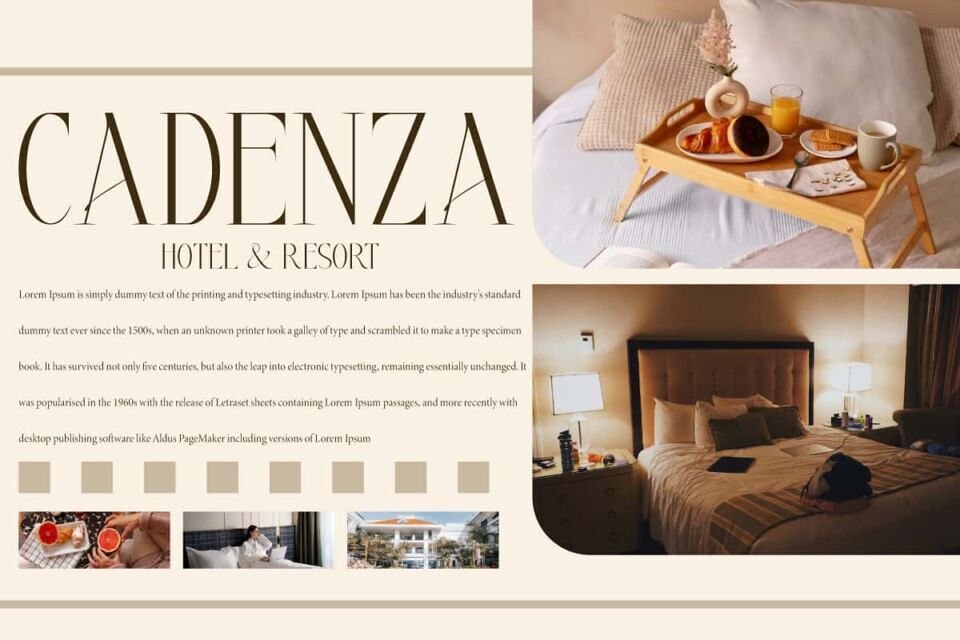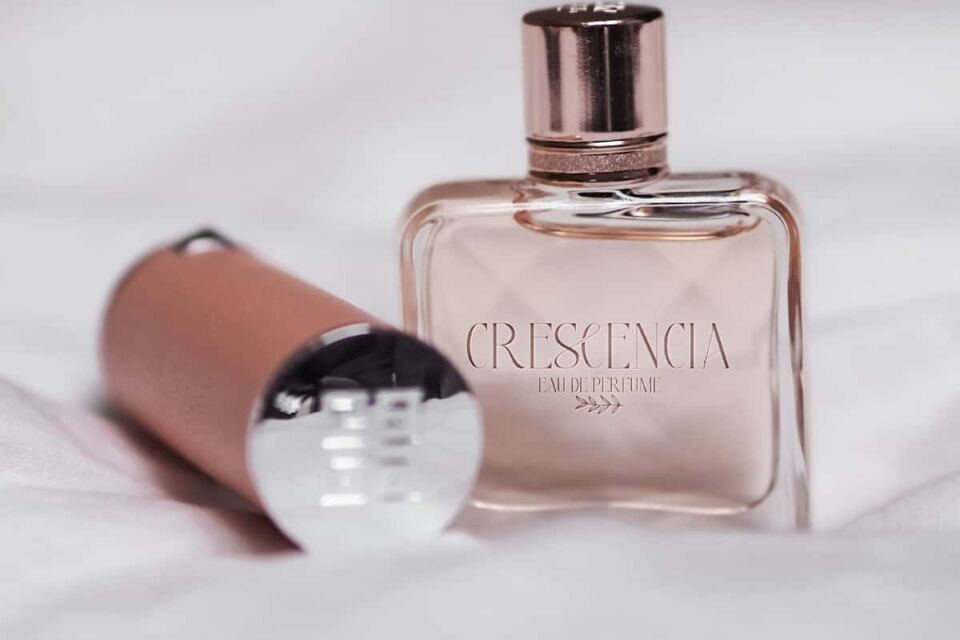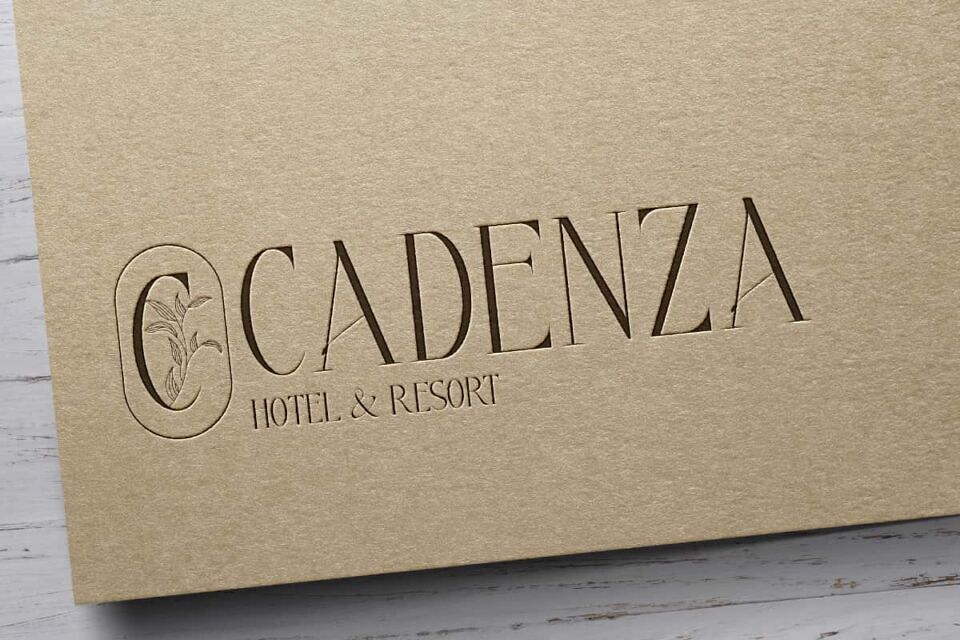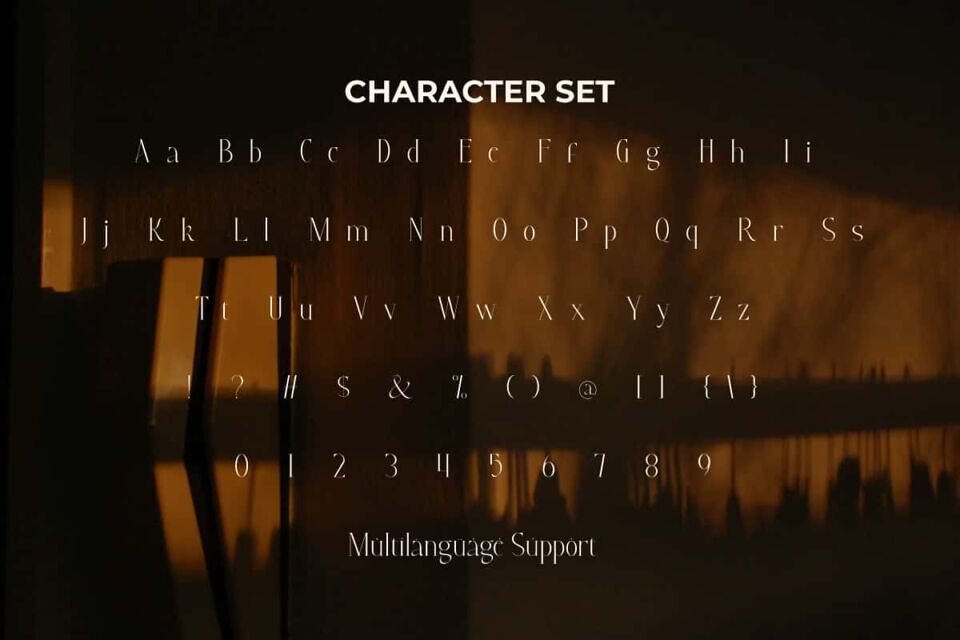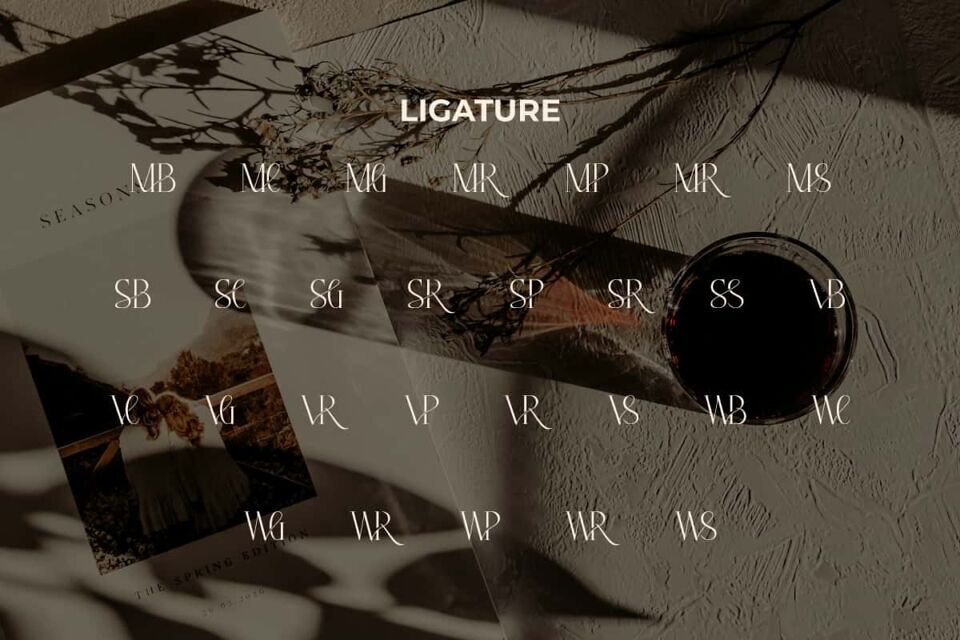
Avrany Emilia Font
Avrany Emilia Font is a sophisticated and stylish serif display with sleek and catchy letters accompanied by a wide selection of ligatures that appear to dance and swirl harmoniously to form a unique & elegant typographic design. Perfect for apps, banners, blogs, brochure, calendar, embossed design, headers, invitation, logos, mockup, product packaging, quotes, template, title, website, and more.
Avrany Emilia Font comes with a complete set of Uppercase and Lowercase Letters, Numbers, Punctuation, Symbols and Ligature. This trendy serif display font has a really luxurious feel that is steeped in retro vibes. It will help you create unique and original designs! Perfect for beauty product, boutique, cosmetologist, fashion, fragrance brand, furniture, graphic design, handicraft, interior design, lodging, spa salon, and more.